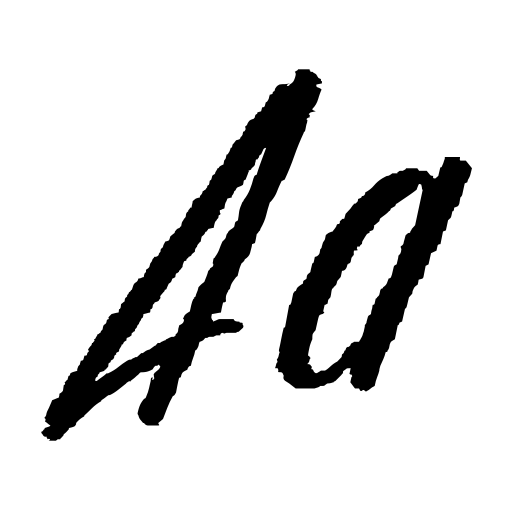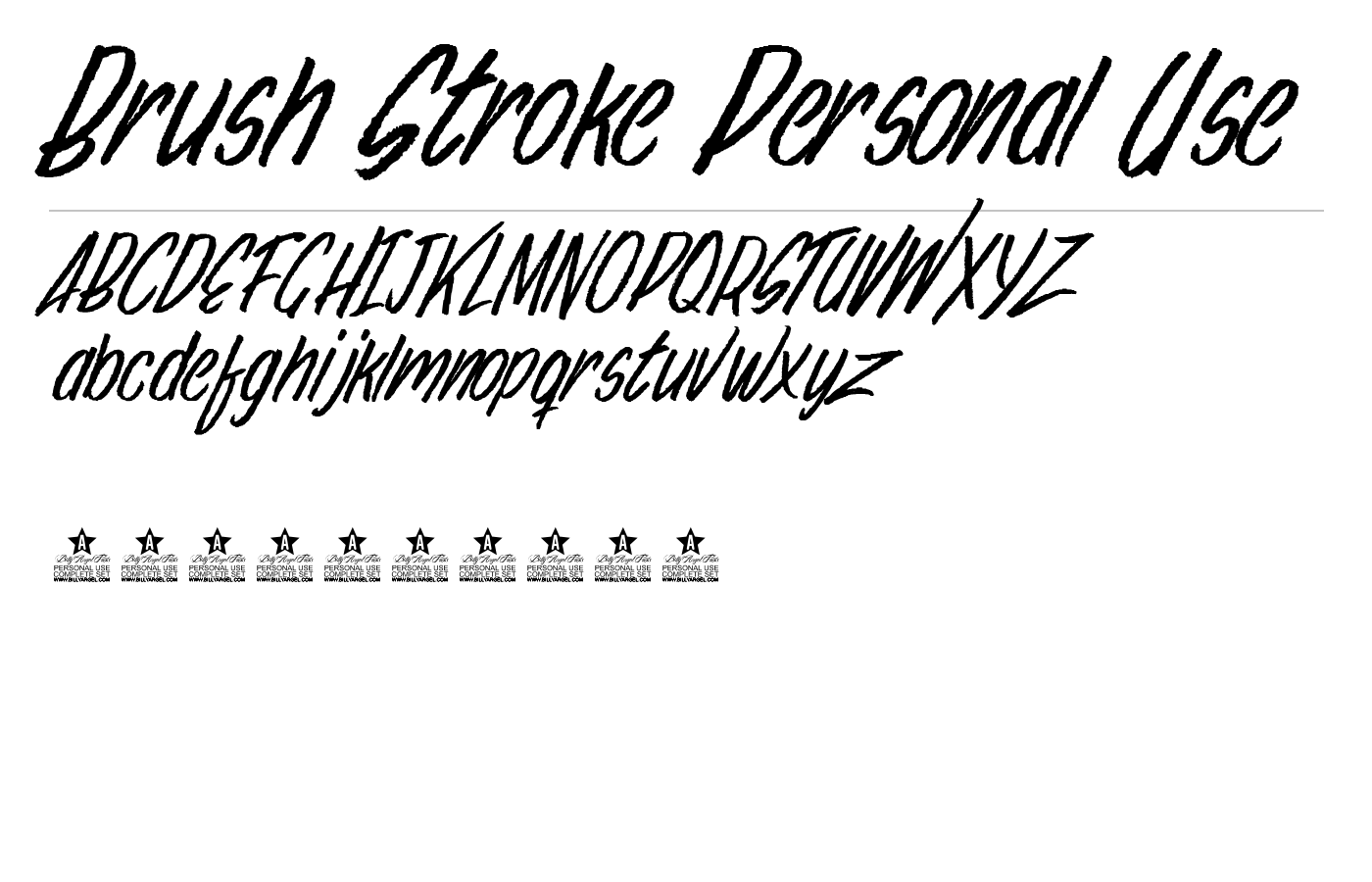
Brush Stroke Personal Use Font is a dynamic and energetic script typeface that mimics the look of quick, textured brush lettering. Its narrow, slightly slanted characters with rough edges create a lively, handcrafted feel, making it perfect for artistic and casual designs that want to convey creativity and spontaneity. This font works well for headlines, branding, posters, and projects needing a bold yet personal touch.
Brush Stroke Personal Use Font
About Brush Stroke Personal Use Font
| Font family | Brush Stroke Personal Use Font |